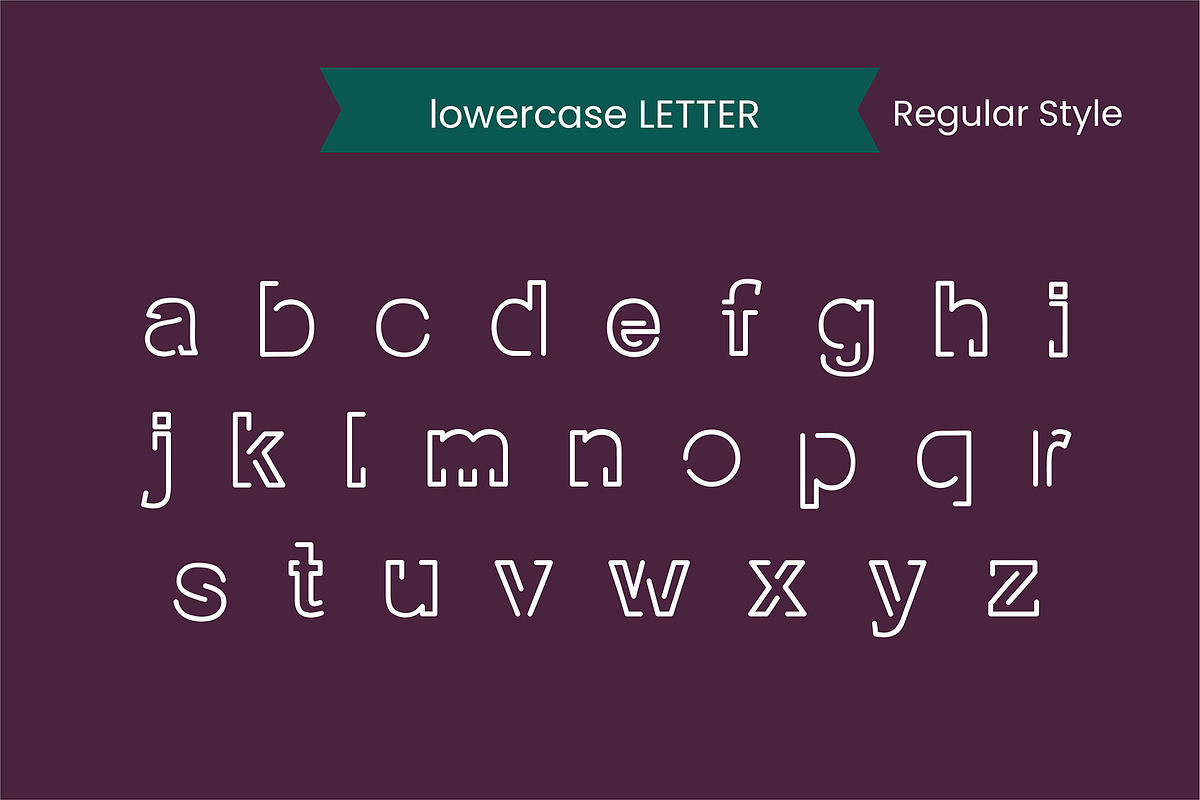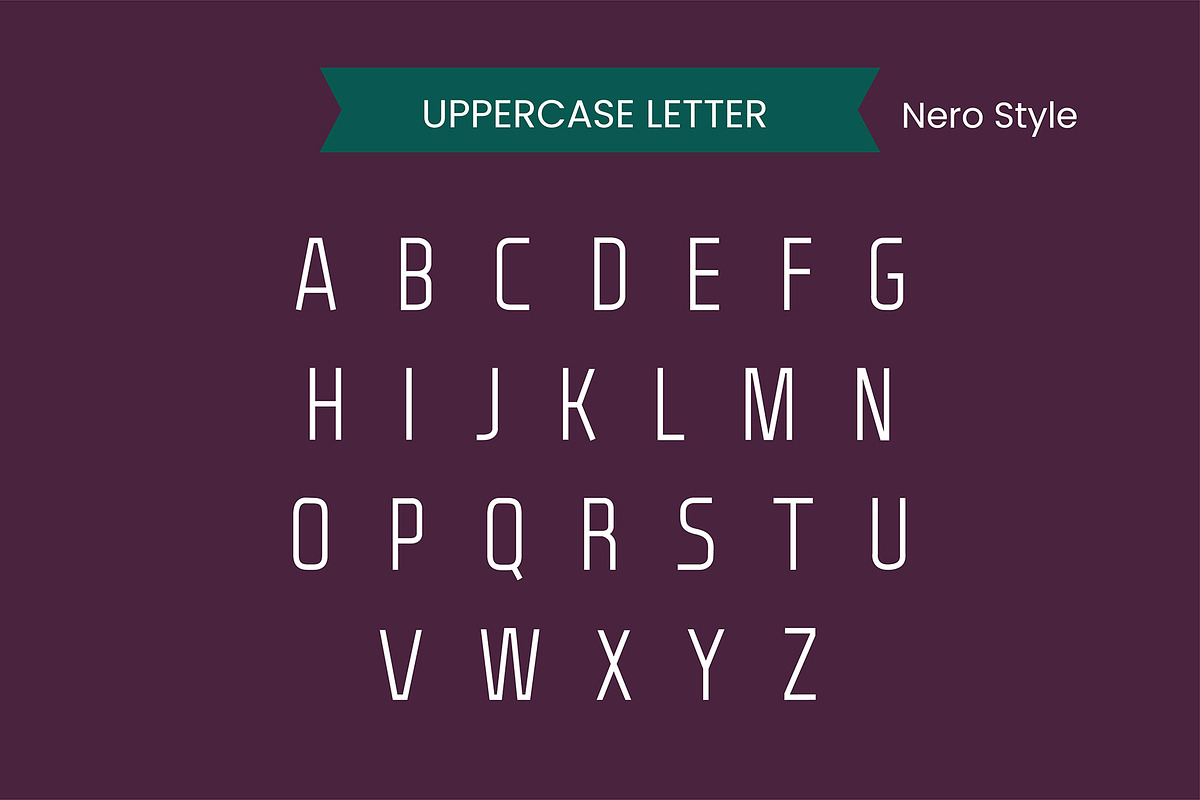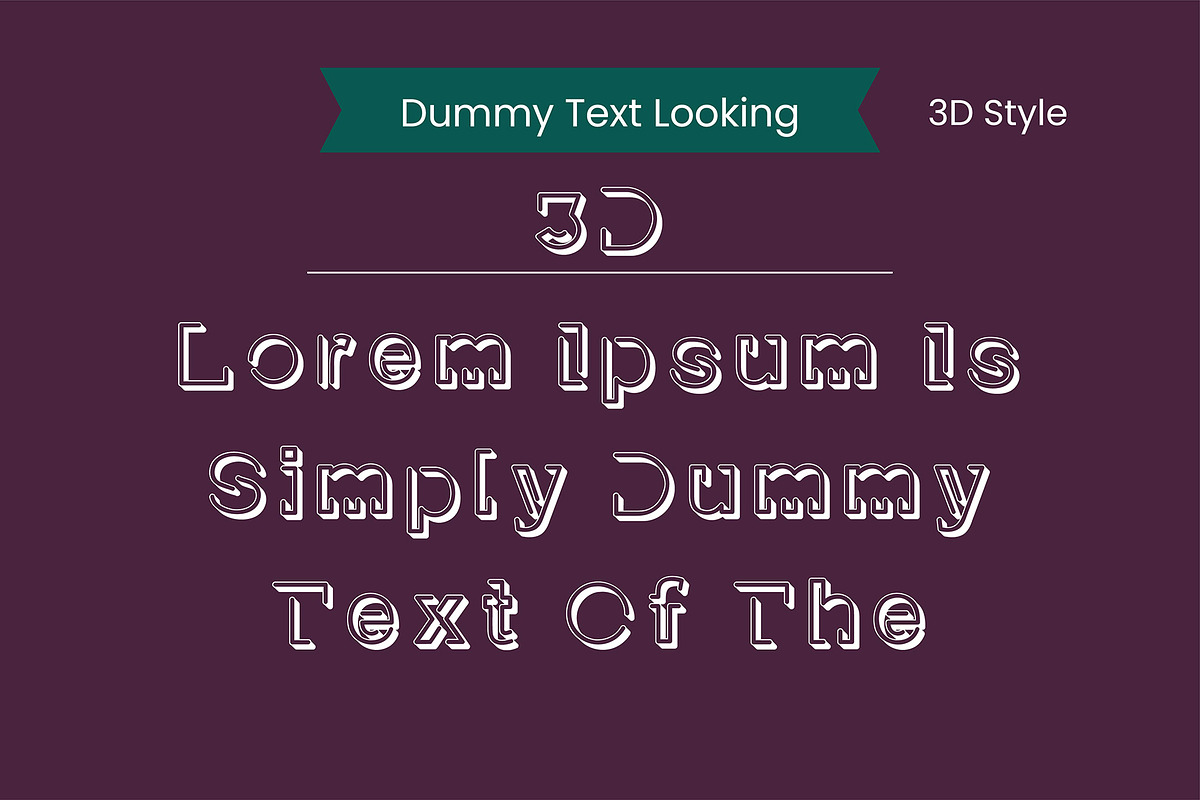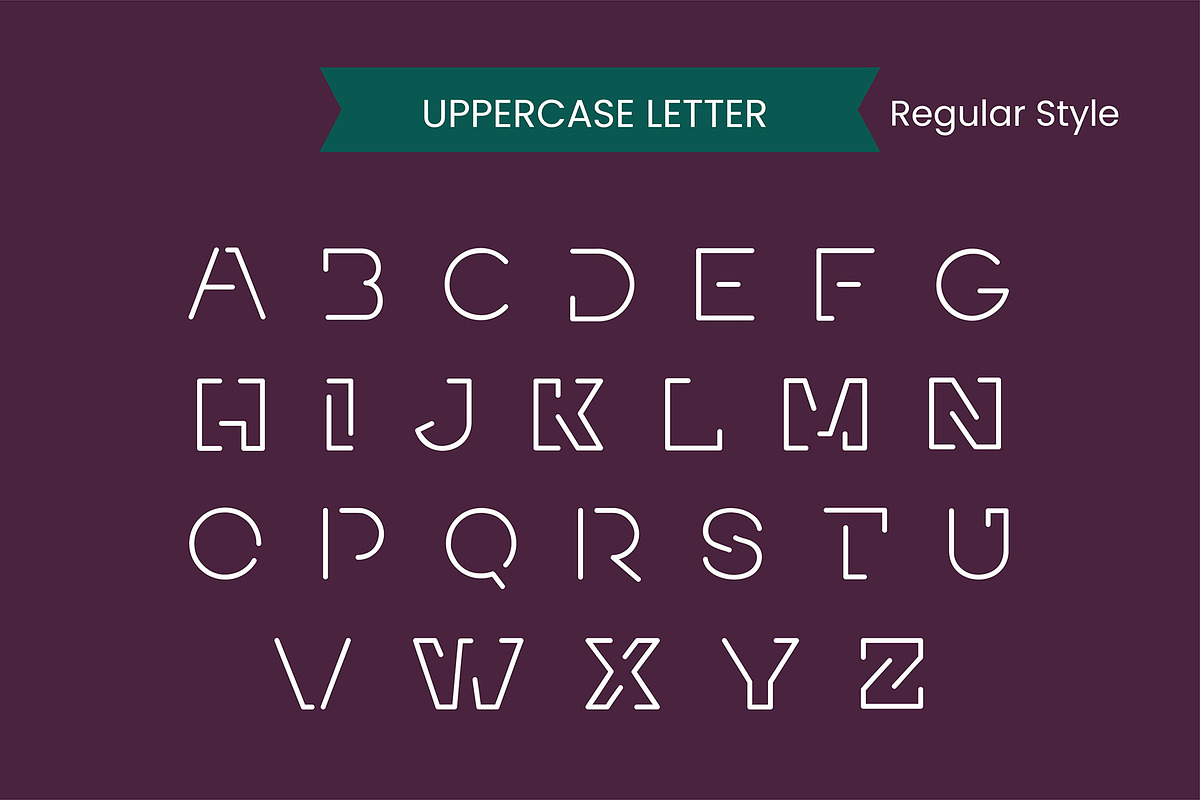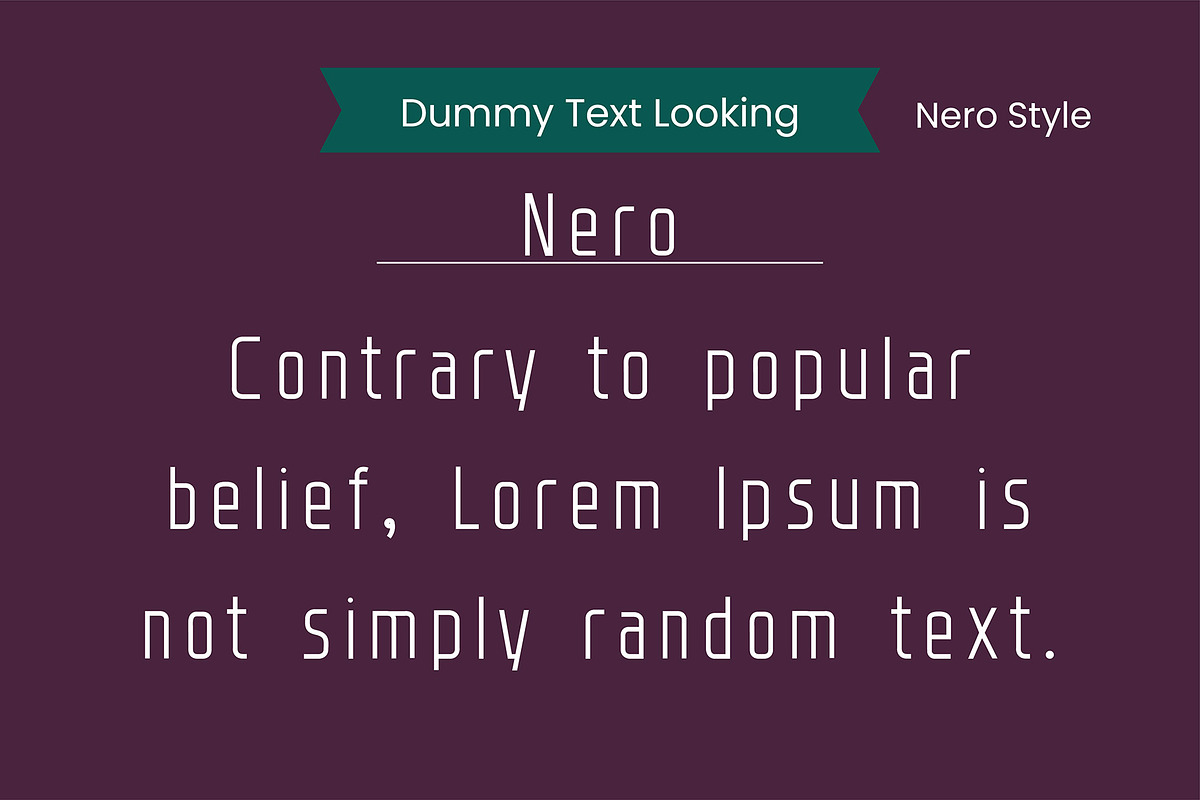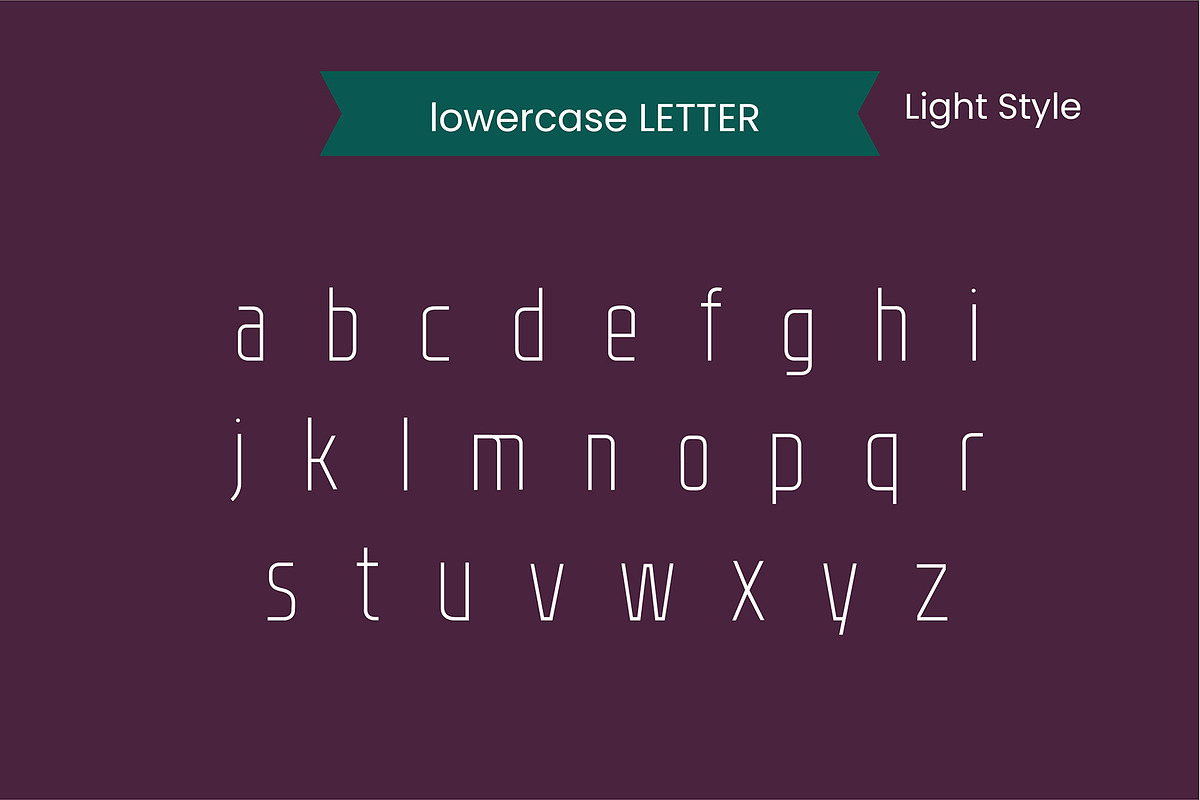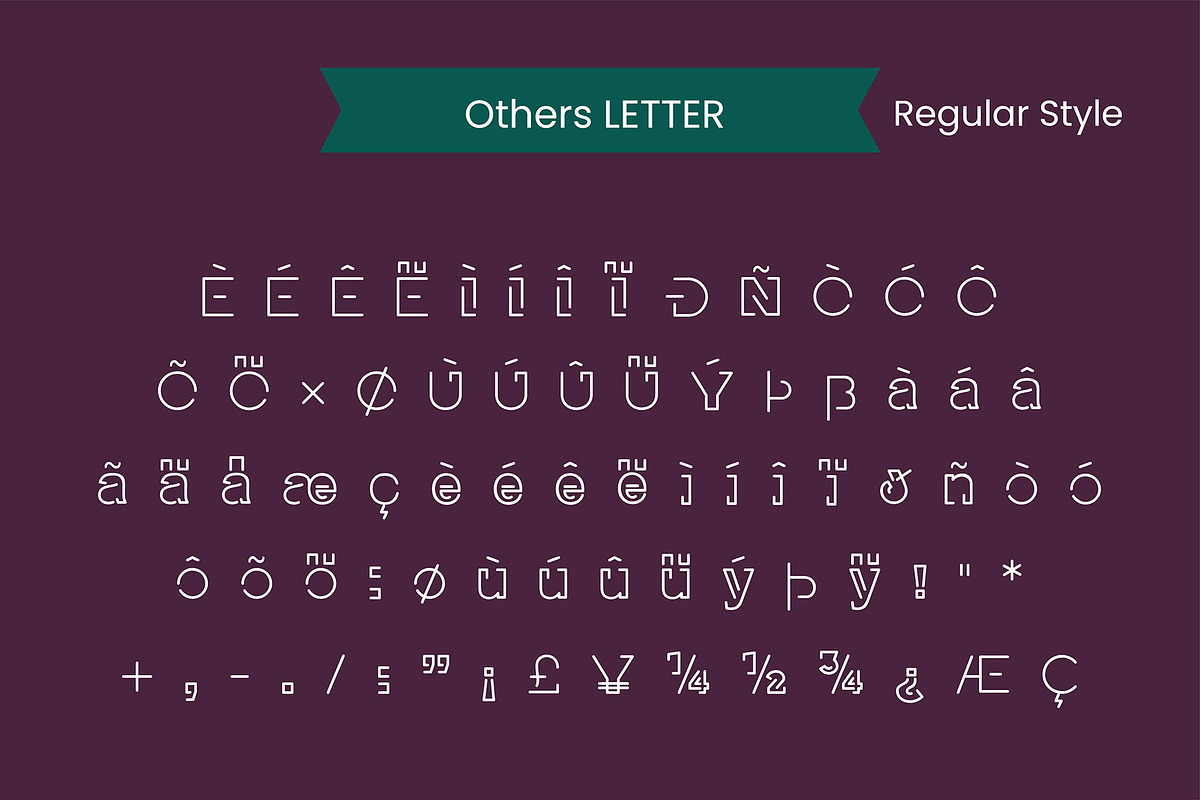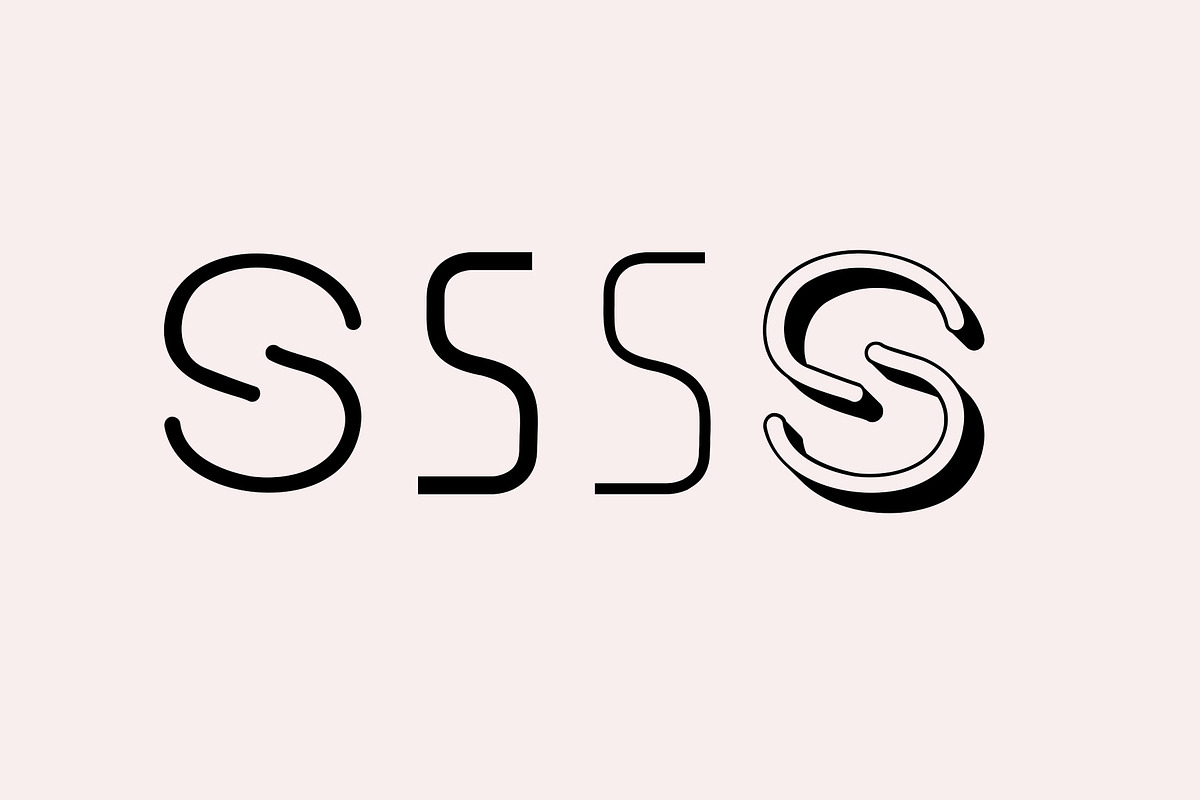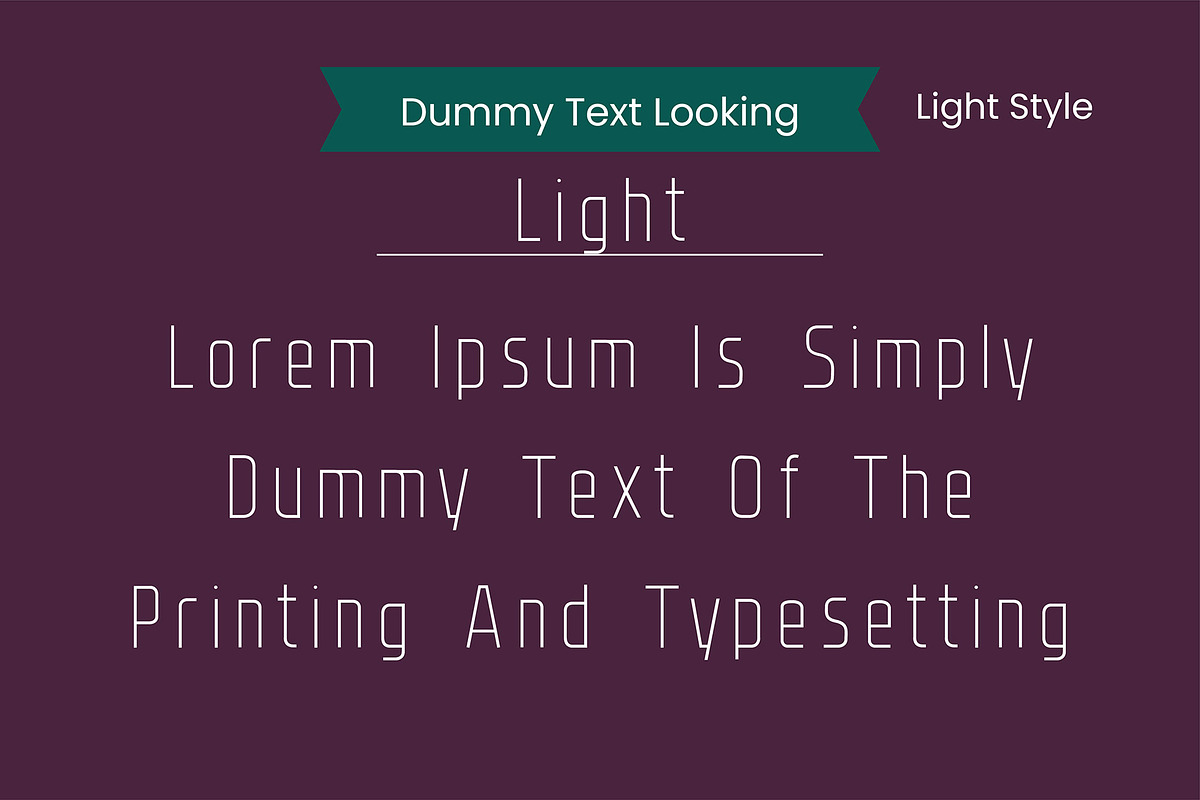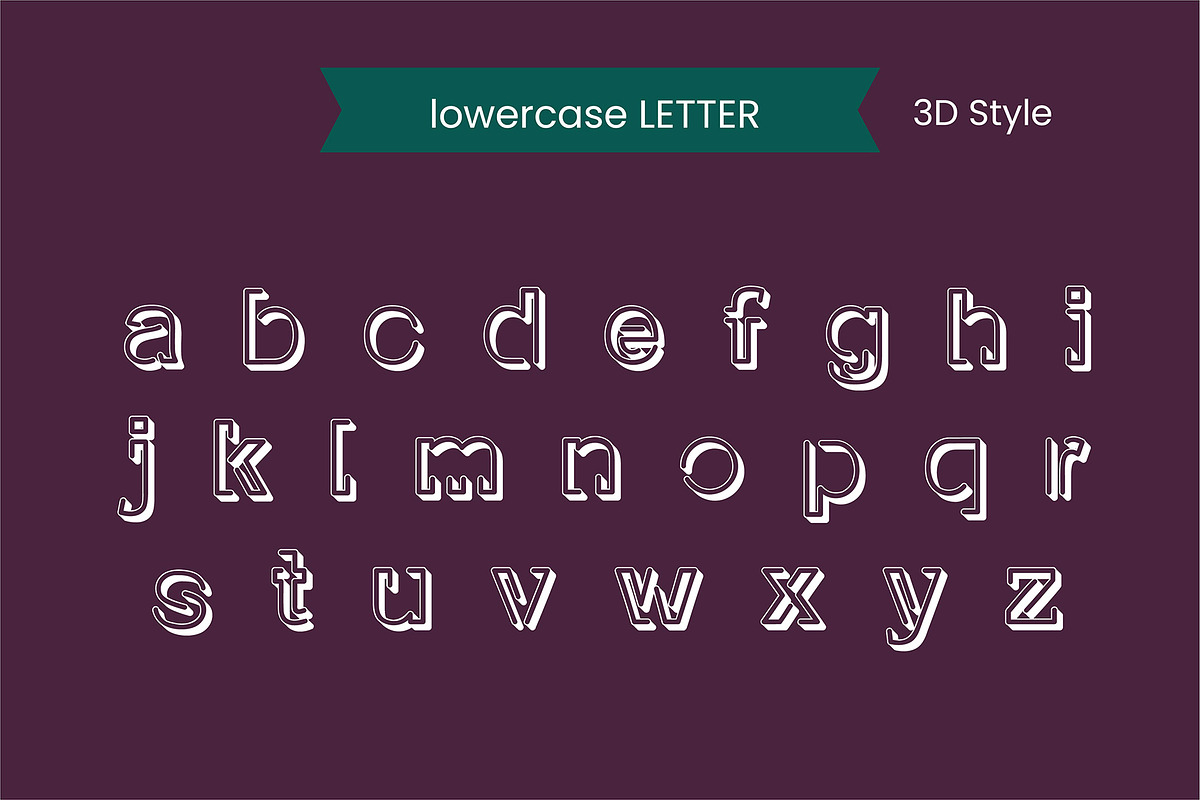
Nick Font
Nick Font – Make Your Creative Designs Stand Out!
Overview
Introducing Nick Font, a stylish, handmade font family designed to elevate your creative projects. This 4-in-1 font family is versatile and perfect for any design needs, blending style and functionality in a unique way.
Font Variations
Nick Font comes in four distinct styles, giving you the flexibility to achieve the perfect look for any project:
Nick Regular – The timeless, elegant standard. Nick 3D – Add depth and dimension to your designs. Nick Light – A subtle, refined touch. Nick Nero – Bold and impactful for striking statements.
Applications
Nick Font is suitable for a wide range of creative projects:
Magazine Design – Add flair to your layouts.
Cover Design – Make book or album covers unforgettable.
Flyer Design – Ensure your promotional materials pop.
Display Font – Perfect for eye-catching headlines.
Website Slider Font – Enhance your digital presence.
Headlines & Taglines – A great choice for attention-grabbing text.
Logos & Branding – Make your brand truly distinctive.
Posters & Ads – Command attention in advertising.
Cards & Invitations – Stylish solutions for personal or professional occasions.
Why Choose Nick Font?
Nick Font offers the perfect balance of style and versatility, making it an invaluable asset for:
- Logos
- Headlines
- Posters
- Newspaper & Magazine Ads
- Product Packaging
- Social Media Graphics
- And much more!
Whether you're designing for print or digital media, Nick Font ensures your work stands out with elegance and creativity.